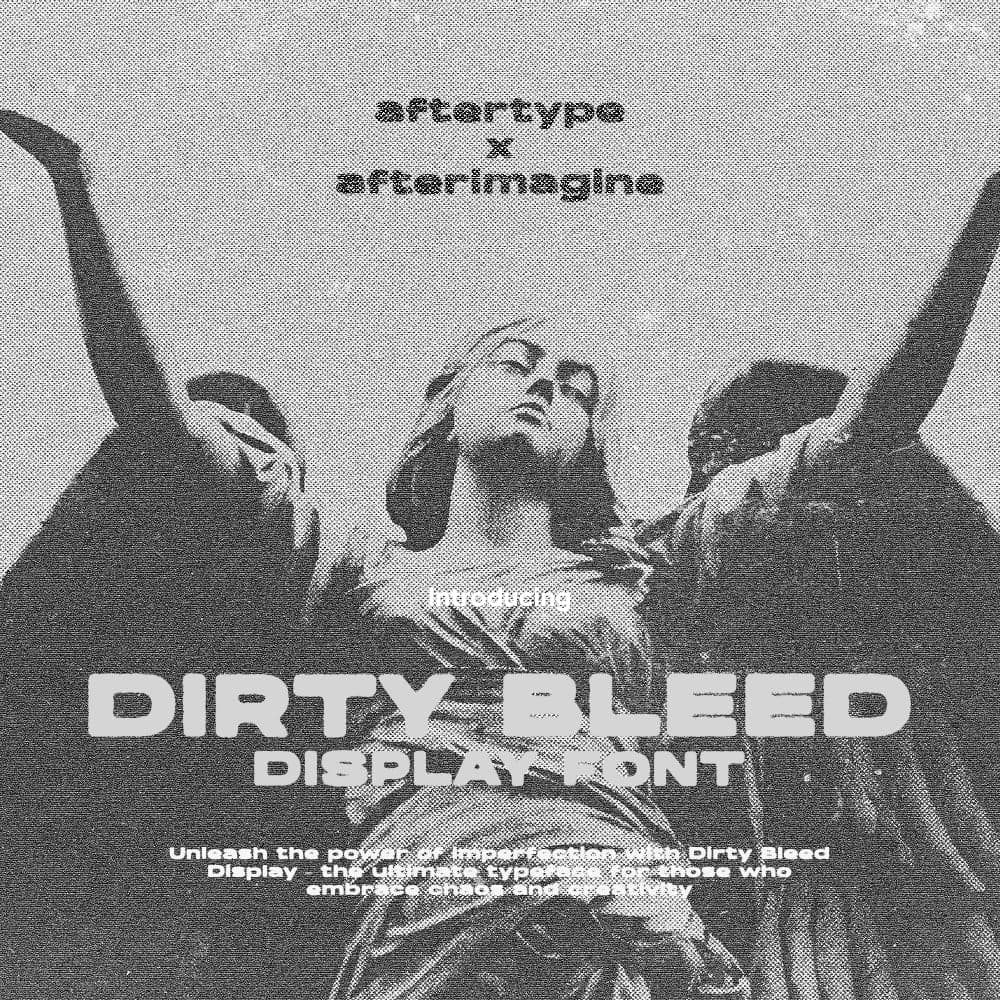
<p><strong>Dirty Bleed Display</strong> – <strong>Let Your Designs Overflow with Raw Energy!</strong></p> <p>Unleash the power of imperfection with <strong>Dirty Bleed Display</strong> – the ultimate typeface for those who embrace chaos and creativity. With its bold, grunge-inspired strokes and ink-splattered edges, this font is designed to make a statement. Whether you’re crafting rebellious posters, edgy branding, or gritty album covers, <strong>Dirty Bleed Display</strong> adds an intense, raw aesthetic that captures attention and fuels the imagination.</p> <p><strong>Support for 60 languages</strong><br>Afrikaans, Albanian, Asu, Basque, Bemba, Bena, Breton, Chiga, Cornish, Danish, Dutch, English, Filipino, Friulian, Galician, Gusii, Indonesian, Irish, Italian, Kabuverdianu, Kalenjin, Kinyarwanda, Luo, Luxembourgish, Luyia, Machame, Makhuwa-Meetto, Makonde, Malagasy, Manx, Morisyen, North Ndebele, Norwegian Bokmål, Norwegian Nynorsk, Nyankole, Oromo, Portuguese, Quechua, Romansh, Rombo, Rundi, Rwa, Samburu, Sango, Sangu, Scottish Gaelic, Sena, Shambala, Shona, Soga, Somali, Spanish, Swahili, Swedish, Swiss German, Taita, Teso, Uzbek (Latin), Vunjo, Zulu.</p>